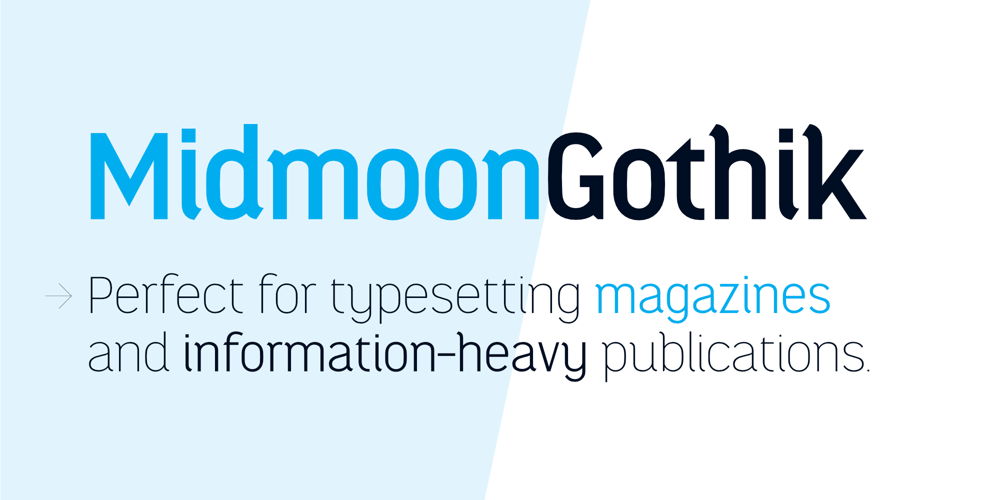
Midmoon Gothik Font Family was designed by Andy Peat and published by Andy Peat. Midmoon Gothik contains 4 styles and family package options. About this font familyMidmoon Gothik was designed for typesetting magazines and information-heavy publications; using simple, clean letterforms for clear communication but with enough character to make it enjoyful. The new lighter weights are a nice addition to the set allowing for finer control over the texture of the page.Features4 weights; Hairline, Thin, Light and Regular.Multi languageLigatures: fi fl ij ffi ffl fb fj ff fk fhNumerals: tabbed lining, proportional oldstyleFractions: ½, ¼, ¾, ⅛, ⅜, ⅝, ⅞Symbols: ¶ § © ® ℗ ™ ° † ‡ ℮ ¢ ¤ $ € ₣ ₤ ₧ £ ₽ ¥ Maths: ⁼+−×÷=≠><≥≤±∂%‰Arrows: ↑↗→↘↓↙←↖↔↕Capital spacingTo be able to access alternative fonts, make sure the software you use can support opentype features such as Microsoft Word, Paint, Adobe, Corel draw, Cricut and other applications.Designed and published by Andy Peat. www.andypeat.comReleased October 2022